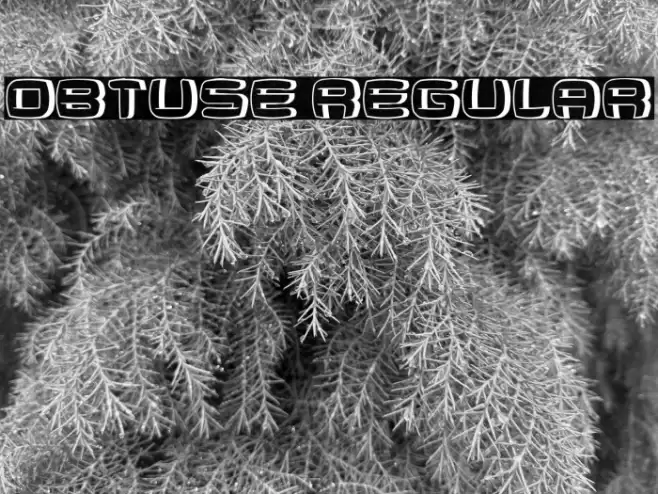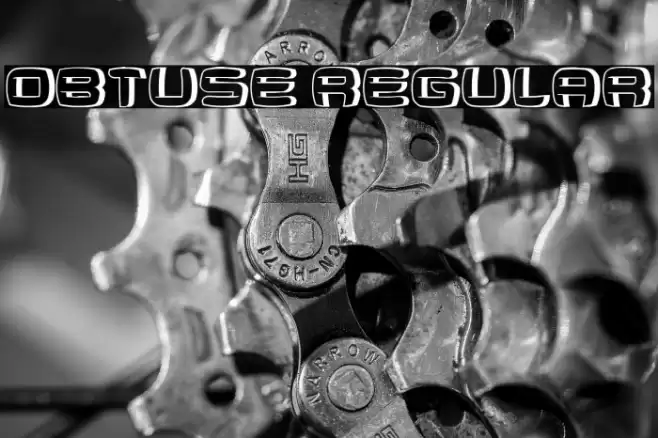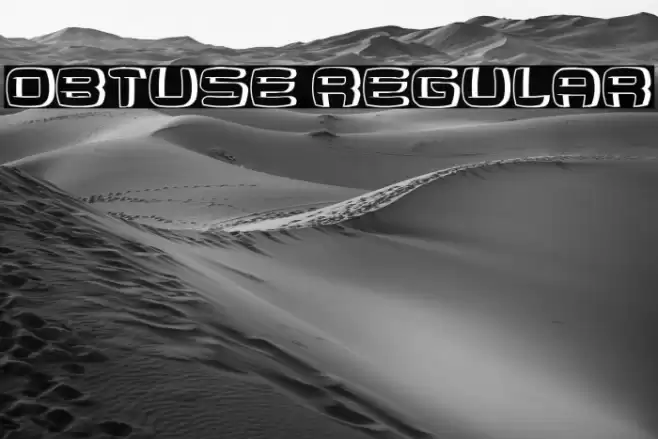
Obtuse Regular Font
Obtuse Regular Description
This font features a bold, futuristic design with a distinct outline style that gives each character a three-dimensional appearance. The letters are wide and have a geometric structure, with rounded edges that soften the overall look. The uppercase and lowercase letters maintain a consistent style, ensuring readability while adding a unique flair. The numbers and special characters are designed to match the boldness and style of the alphabet, making this font suitable for a variety of creative projects.
A bold, futuristic font with a three-dimensional outline style from Regular fonts.
- Proposed Projects: Ideal for sci-fi themed designs, video game graphics, posters, and branding that requires a modern and bold aesthetic.
- Width: Expanded
- Overall Style: Futuristic, Modern